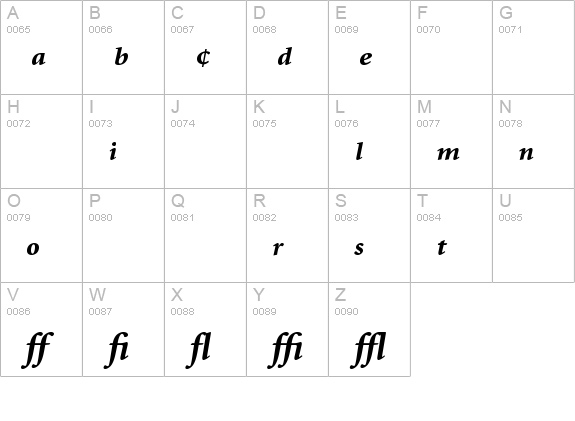
Minion Bold Italic Expert Font Details
Minion Bold Italic Expert is a strong, high-contrast, italic variant in the Minion typeface family \xE2\x80\x94 well suited to headlines, attention-grabbing titles, and strong calls-to-action.
Minion Bold Italic Expert font is a versatile and elegant typeface that exudes sophistication and style. Its bold and italic design gives a strong and dynamic appearance, making it perfect for conveying a sense of confidence and authority in your projects. This font is ideal for use in a variety of design applications, from editorial layouts to branding materials. Its expertly crafted design ensures clear legibility and readability, even in small sizes or intricate designs. The best part? Minion Bold Italic Expert font is available for free download at FontsMarket.com. Take advantage of this amazing offer and enhance your designs with this exceptional typeface today!